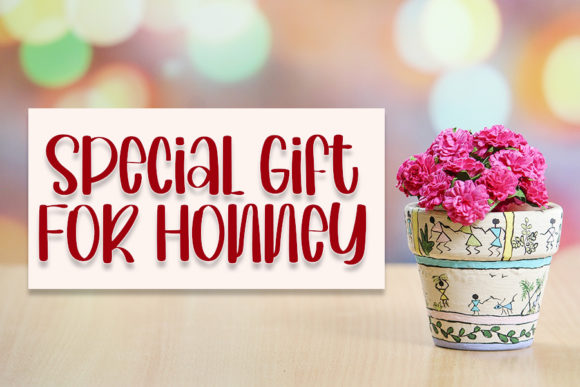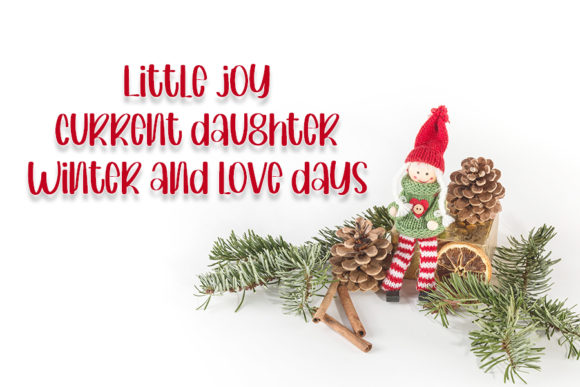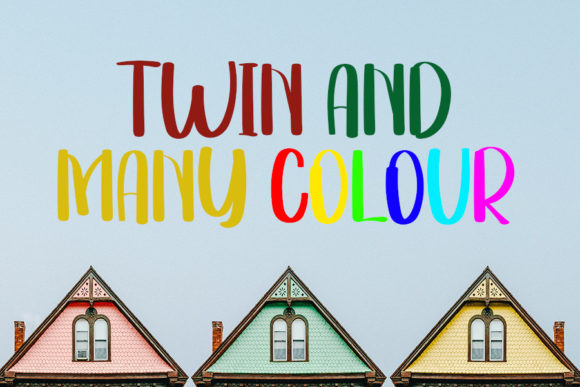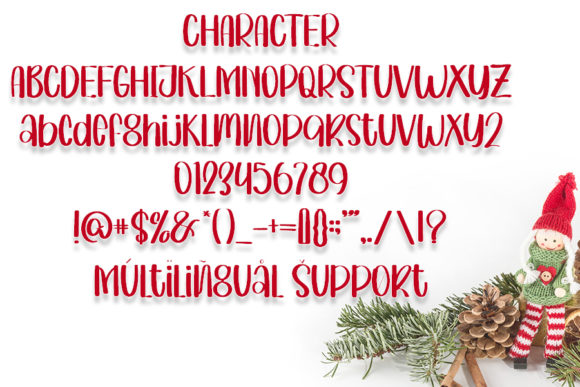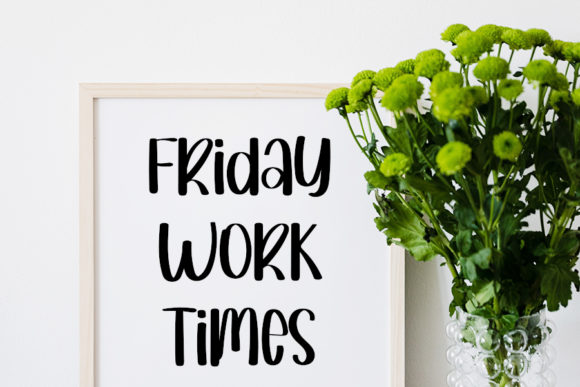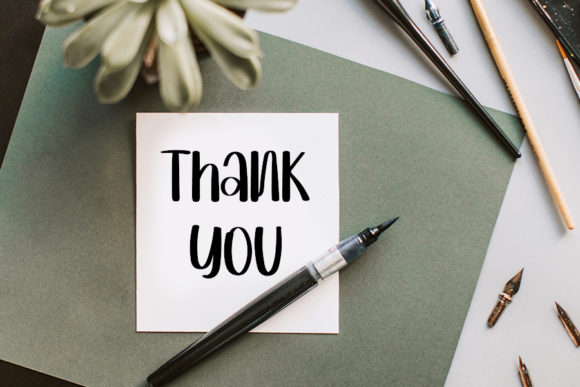
Candy Love Font: The Sweetest Addition to Your Design Projects
Are you a designer or crafter looking for a font that can add a touch of sweetness and charm to your projects? Look no further than the Candy Love Font! This simple and cute handwritten font is designed to enhance the beauty of your projects, making it perfect for a wide range of applications.
What Makes Candy Love Font So Special?
Candy Love Font is a beautifully crafted handwritten font that strikes the perfect balance between being too thin and too thick. Its balanced and varied strokes make it a versatile font that can be used in a variety of design projects, from digital crafts to commercial designs.
One of the standout features of Candy Love Font is its unique and distinctive style. The font’s handwritten strokes are smooth and flowing, giving it a personal and friendly feel that’s perfect for designs that require a touch of warmth and personality.
Candy Love Font is a dream come true for designers and crafters who are looking for a font that can add a touch of whimsy and charm to their projects. Whether you’re creating digital crafts, printable art, or commercial designs, this font is sure to impress.
For designers, Candy Love Font is a great addition to your font library. Its versatility and unique style make it perfect for a wide range of design projects, from branding and packaging to social media graphics and more.
For crafters, Candy Love Font is a great way to add a personal touch to your digital crafts. Whether you’re creating printable art, planners, or journals, this font is sure to make your projects stand out.
Key Features of Candy Love Font
• Simple and Cute Handwritten Style: Candy Love Font features a simple and cute handwritten style that’s perfect for designs that require a touch of personality.
• Balanced and Varied Strokes: The font’s balanced and varied strokes make it a versatile font that can be used in a wide range of design projects.
• Perfect for Digital Crafts and Commercial Designs: Candy Love Font is perfect for digital crafts and commercial designs, making it a great addition to your font library.
• Easy to Read and Use: The font is easy to read and use, making it perfect for designs that require a clear and legible font.
How to Use Candy Love Font in Your Design Projects
Here are a few ideas for using Candy Love Font in your design projects:
• Digital Crafts: Use Candy Love Font to create beautiful digital crafts, such as printable art, planners, and journals.
• Commercial Designs: Use Candy Love Font in your commercial designs, such as branding and packaging, social media graphics, and more.
• Personal Projects: Use Candy Love Font in your personal projects, such as creating custom signs, banners, and more.
Candy Love Font is a sweet and charming font that’s perfect for designers and crafters who are looking for a font that can add a touch of personality to their projects. With its simple and cute handwritten style, balanced and varied strokes, and versatility, this font is sure to become a favorite in your font library.